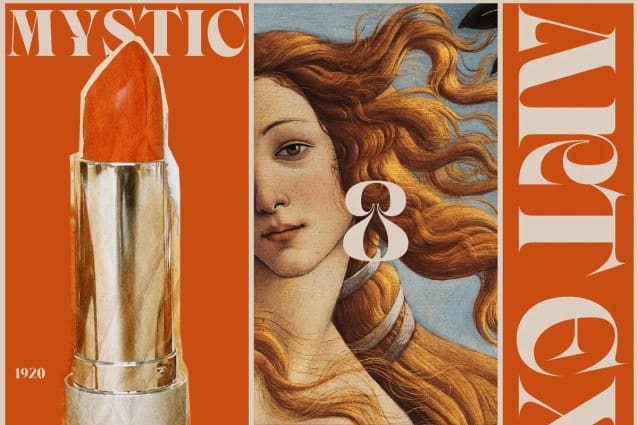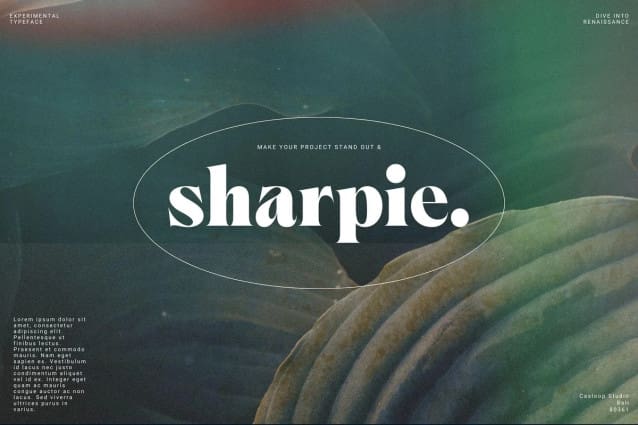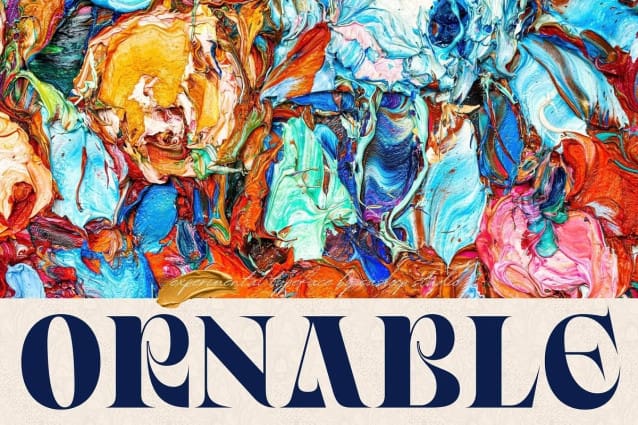
Ornable Font
Ornable Font, your font of choice for a captivating blend of Renaissance, Art Nouveau, Medieval, and Art Deco vibes. This single-weight typeface is designed for those seeking a font that embodies a rich tapestry of artistic nuances.
With 35 meticulously crafted ligatures, Ornable Font ensures your text is not just seen but experienced. Dive into the charm of fractions for precise numerical representation and case-sensitive forms for a perfect interplay of uppercase and lowercase letters.
Stand out effortlessly with the inclusion of a unique arrow symbol, adding a modern touch to your designs. Ornable adapts seamlessly to various themes, from the classic allure of Renaissance to the bold geometry of Art Deco.
Whether you’re crafting posters or logos, Ornable celebrates your creativity with sharp lines and intricate details. It’s the ideal choice for projects that demand a touch of mystique and retro charm.
Capture the essence of artistic movements with this typeface and step into a world where past and future converge – embrace Ornable and redefine the boundaries of your creative expression.